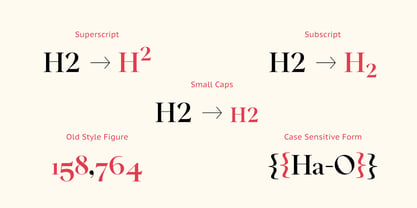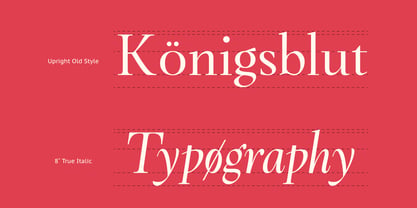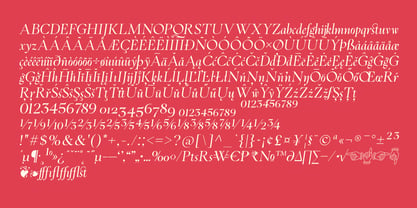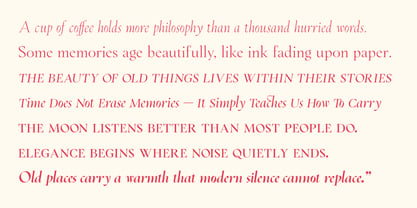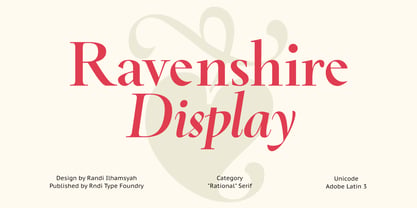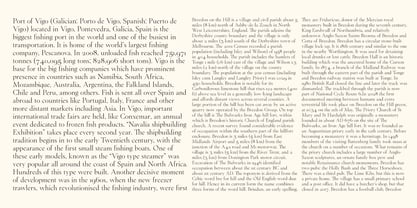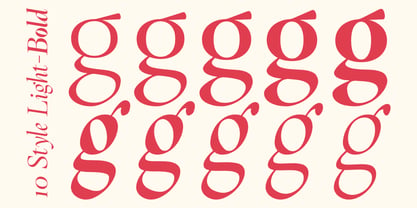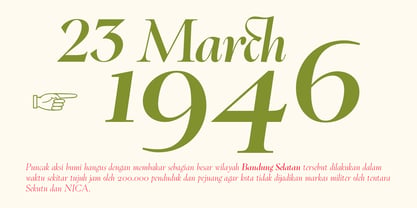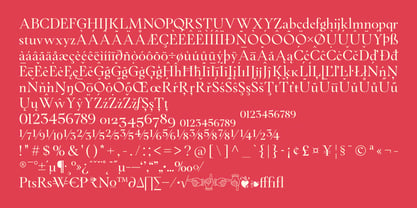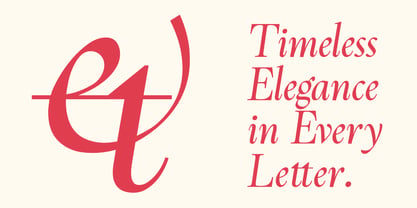
Ravenshire
by RNDI Type Foundry
The Ravenshire Font Family was designed by Randi Ilhamsyah and published by RNDI Type Foundry. Ravenshire contains 10 styles and family package options. More about this family
Ravenshire is a refined display serif typeface that blends timeless old-style elegance with a modern editorial touch. Crafted with graceful contrast, delicate serifs, and expressive italics, Ravenshire brings a luxurious, poetic, and sophisticated atmosphere to every composition.
Inspired by classic European typography and vintage café aesthetics, Ravenshire is designed to shine in headlines, branding, editorial layouts, packaging, logos, fashion projects, wedding designs, and premium visual identities. Its artistic letterforms remain highly readable while delivering a distinctive and memorable character.
Ravenshire features:
• Uppercase & lowercase characters
• Elegant alternates & ligatures
• True italic style
• Old style figures
• Superscript & subscript
• Small caps
• Case-sensitive punctuation
• Adobe Latin 3 multilingual support
With its refined curves, stylish italics, and timeless serif construction, Ravenshire is perfect for creating designs that feel elegant, artistic, romantic, and enduring.
Designers: Randi Ilhamsyah
Foundry: RNDI Type Foundry